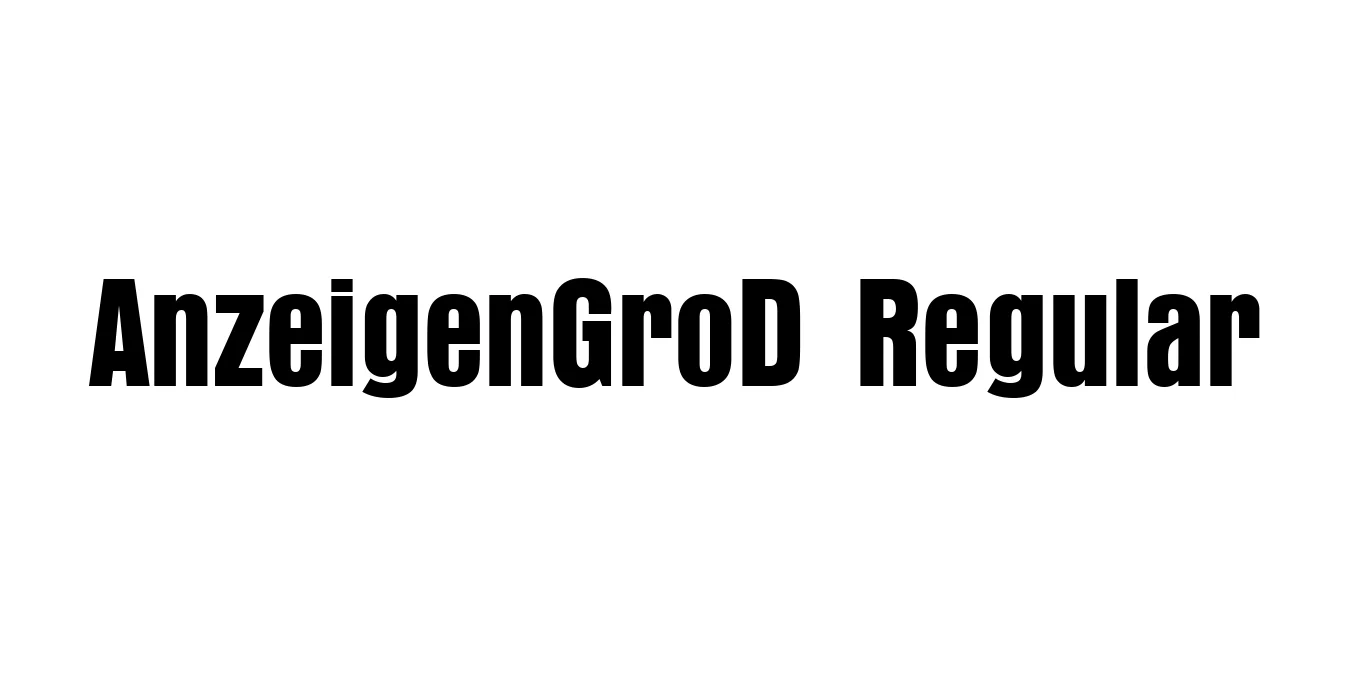
AnzeigenGroD Regular
Designed by H. Berthold AG
Anzeigen-Grotesk, often referred to as AnzeigenGroD, is a heavyweight sans-serif typeface originally released by the Berthold Type Foundry in the mid-20th century. Designed primarily for impact, this typeface features condensed proportions and thick strokes that make it exceptionally well-suited for high-visibility applications. It belongs to the "Grotesque" family, characterized by its industrial feel and lack of decorative flourishes, emphasizing utility and strength.
The digital version, AnzeigenGroD Regular, preserves the narrow apertures and tight kerning of the original lead type. It became a staple in European advertising during the post-war era and remains a popular choice for designers looking to recreate a vintage, authoritative aesthetic. Its robust structure ensures legibility even in crowded layouts, making it a go-to font for editorial headlines and bold poster designs where space is at a premium.
AnzeigenGroD Regular Best Uses
Ideal for bold, high-impact commercial advertisements and promotions.
Perfect for striking magazine headlines and authoritative cover titles.
Well-suited for large-scale event posters and cinematic graphics.
Strong choice for corporate logos requiring an industrial or vintage personality.